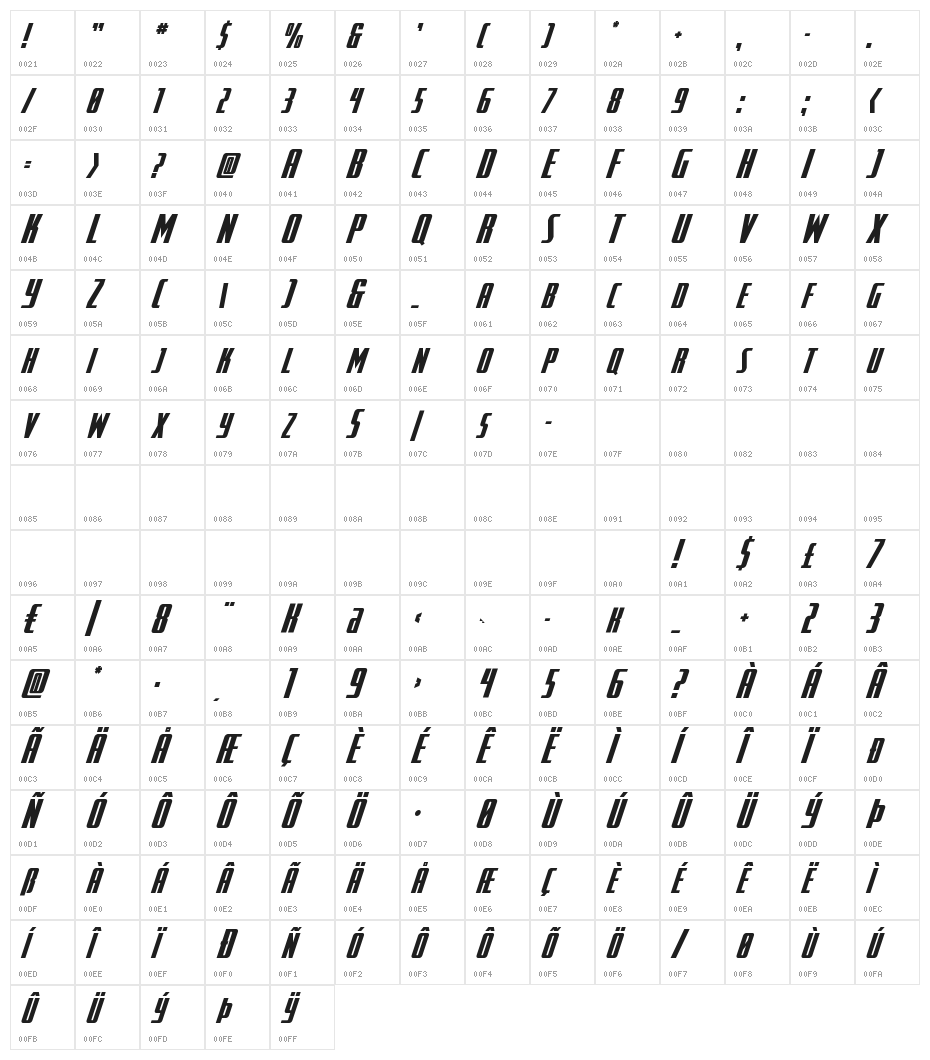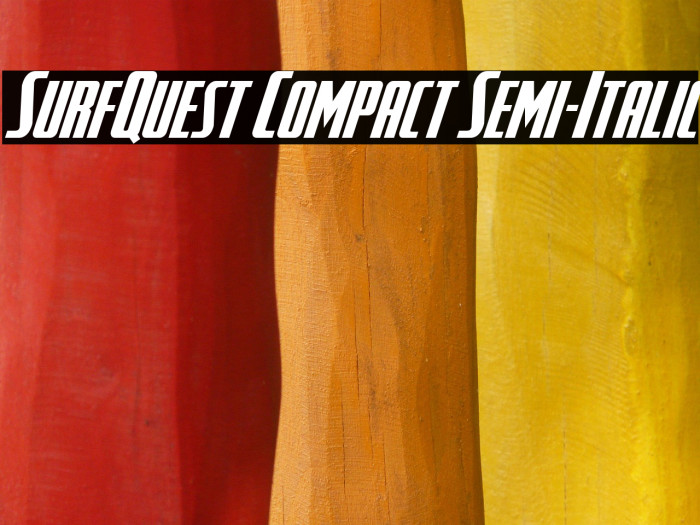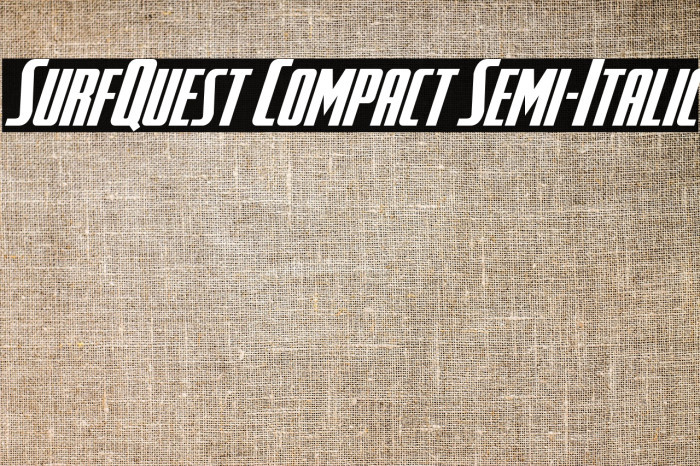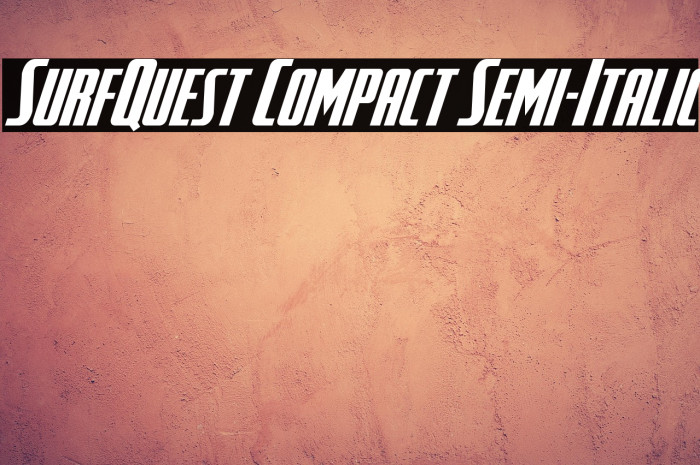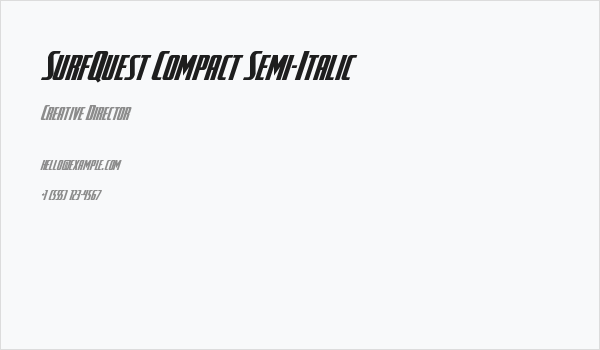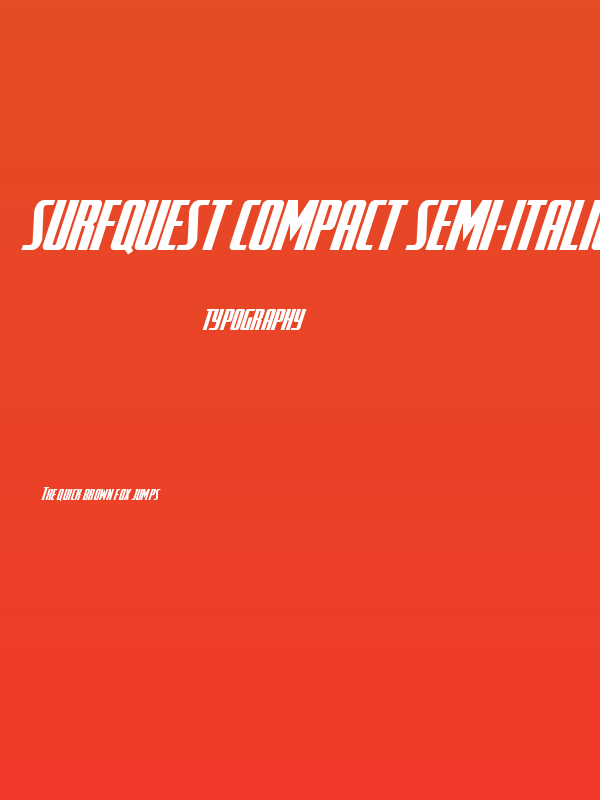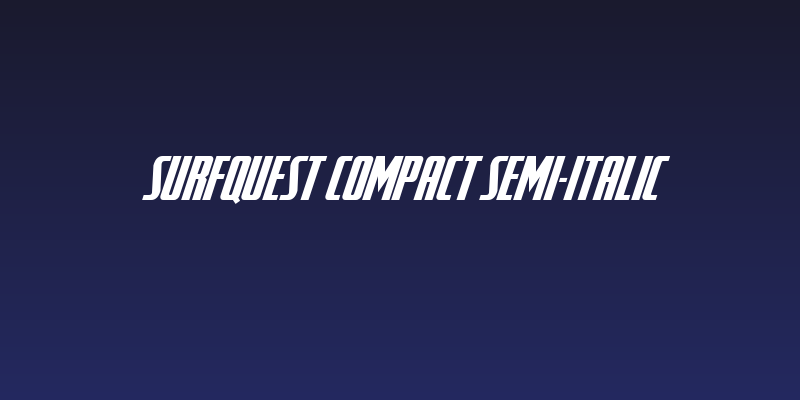
SurfQuest Compact Semi-Italic Font
SurfQuest Compact Semi-Italic Description
This font features a bold and dynamic style with a semi-italic slant, giving it a sense of motion and energy. The characters are compact and condensed, which enhances their impactful appearance. The uppercase letters are tall and commanding, while the lowercase letters maintain a consistent style that complements the uppercase. The numerals are equally bold, ensuring they stand out in any design. Special characters are designed with the same boldness, making them suitable for attention-grabbing headlines or logos. The overall design is modern and sleek, perfect for projects that require a strong visual presence.
| Proposed Projects | Ideal for sports branding, dynamic posters, modern advertising, and bold headlines. |